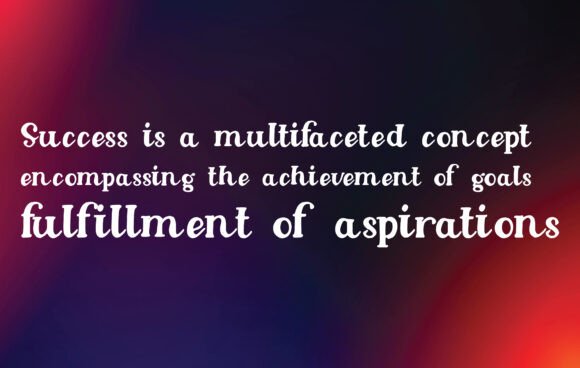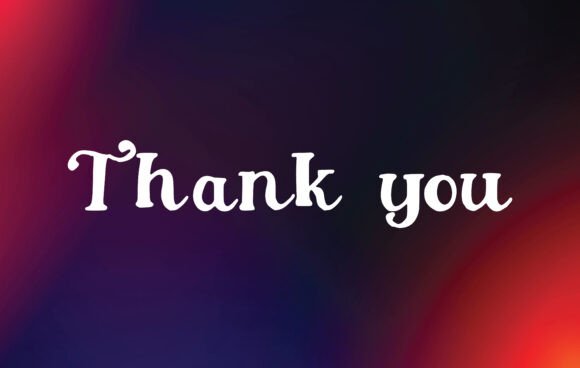
Introducing Agapanthus Font: Elevate Your Creative Projects with Elegance
Are you a designer, crafty enthusiast, or simply someone who appreciates beautiful typography? Look no further than the Agapanthus font, a stunning handwritten font that can take your creative ideas to new heights. With its elegant and lovely design, Agapanthus is the perfect choice for creating eye-catching logos, branding, and quotes that leave a lasting impression.
The Beauty of Agapanthus Font
Agapanthus font is a masterpiece of handwritten typography, boasting a unique and beautiful design that sets it apart from other fonts. Its elegant lines, curves, and flourishes make it a joy to use in a variety of creative projects. Whether you’re designing a logo, creating a brand identity, or crafting a quote, Agapanthus font is sure to add a touch of sophistication and style.
What Makes Agapanthus Font Special?
So, what makes Agapanthus font so special? Here are just a few reasons why designers and crafters love this font:
- Unique and Handwritten Design: Agapanthus font is a carefully crafted handwritten font that offers a distinctive and personal touch to your designs.
- Elegant and Lovely: With its flowing lines and beautiful curves, Agapanthus font adds an air of elegance and sophistication to any design.
- Versatile: Agapanthus font is perfect for a wide range of creative projects, from logos and branding to quotes and more.
- Easy to Read: Despite its elegant design, Agapanthus font is easy to read, making it perfect for use in both digital and print materials.
Uses for Agapanthus Font
Agapanthus font is incredibly versatile, making it suitable for a wide range of creative projects. Here are some ideas to get you started:
- Logo Design: Create a stunning logo for your business or brand with Agapanthus font.
- Branding: Use Agapanthus font to create a consistent brand identity across all your marketing materials.
- Quotes and Typography: Add a touch of elegance to your quotes and typography with Agapanthus font.
- Stationery and Invitations: Use Agapanthus font to create beautiful stationery, invitations, and greeting cards.
- Digital Design: Agapanthus font is perfect for use in digital designs, such as social media graphics, blog headers, and more.
Tips for Using Agapanthus Font
To get the most out of Agapanthus font, here are some tips to keep in mind:
- Use it Sparingly: Agapanthus font is a statement font, so use it sparingly to make a big impact.
- Pair it with Other Fonts: Experiment with pairing Agapanthus font with other fonts to create a unique and interesting design.
- Adjust the Size and Color: Play around with different sizes and colors to find the perfect combination for your design.
In conclusion, Agapanthus font is a beautiful and elegant handwritten font that can elevate your creative projects to new heights. With its unique design, versatility, and ease of use, Agapanthus font is perfect for designers, crafters, and anyone looking to add a touch of sophistication to their designs. So why wait? Download Agapanthus font today and start creating stunning designs that leave a lasting impression.